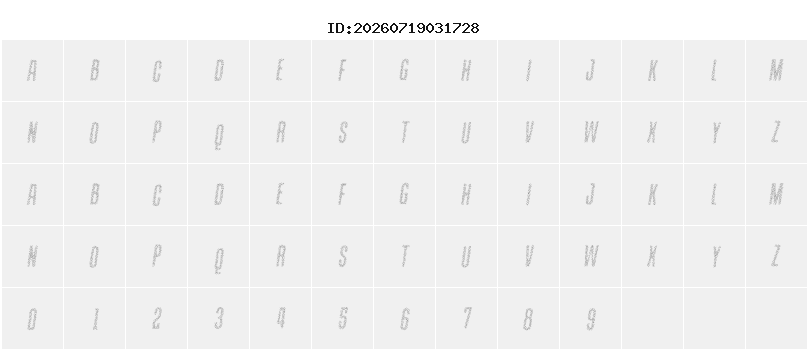
• Font Name: Containment Sparkle
• Designer: Ray Larabie
About Containment Sparkle.ttf
Containment Sparkle.ttf is a modern, elegant sans-serif font designed for ultimate readability and visual harmony. Perfect for branding, headlines, web design, and print materials.